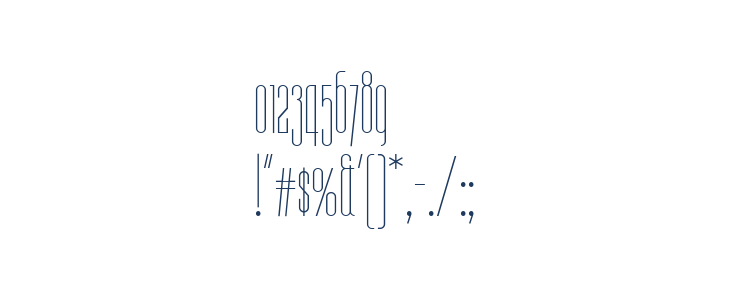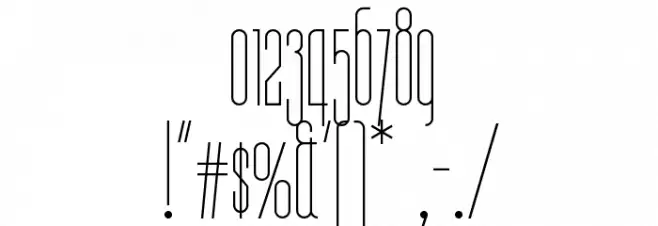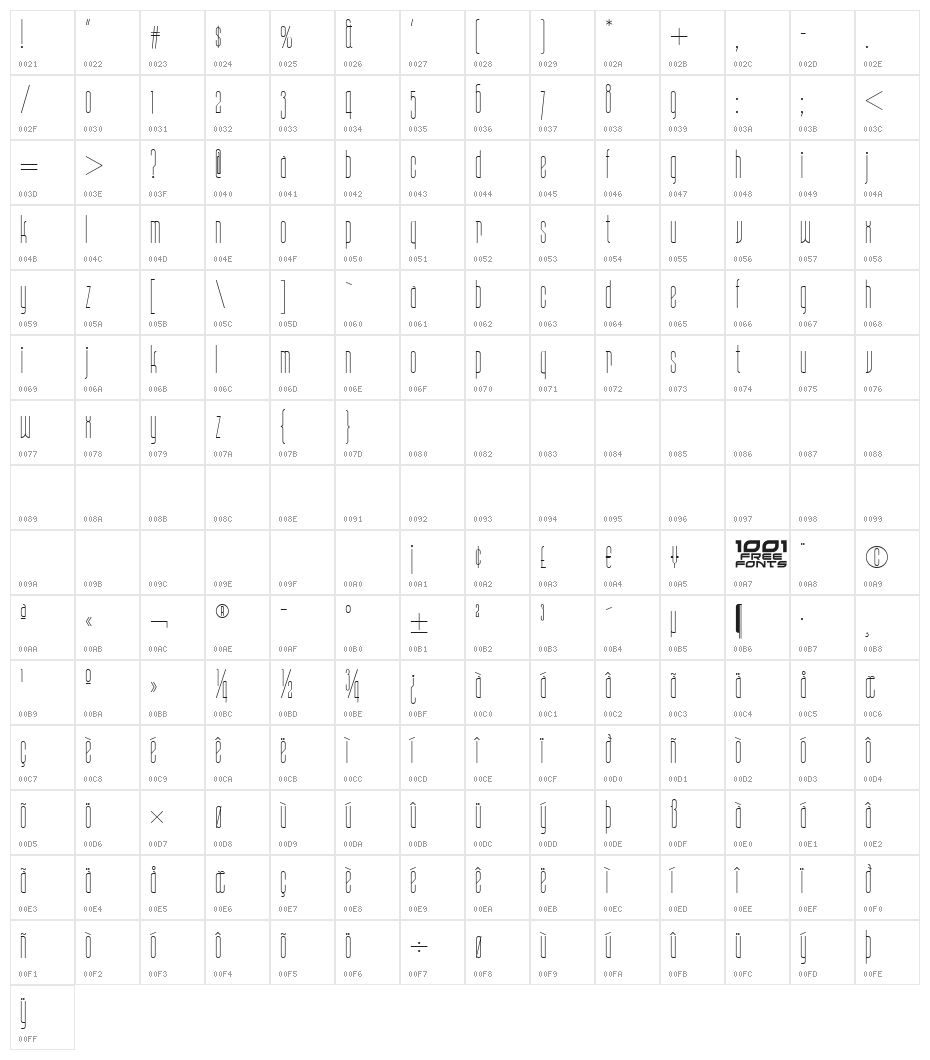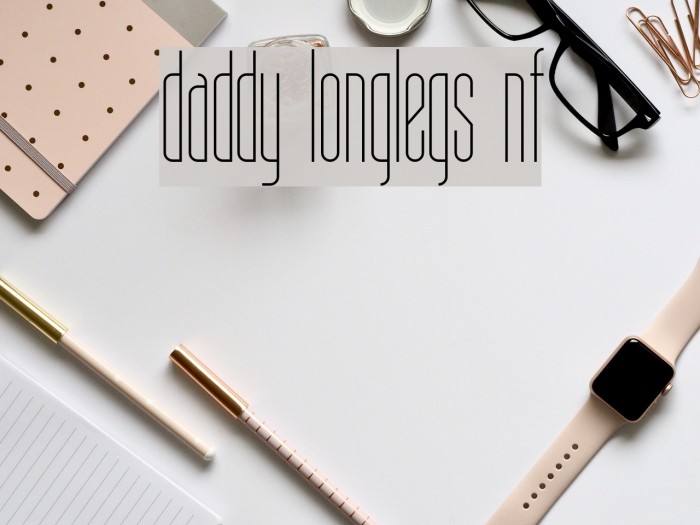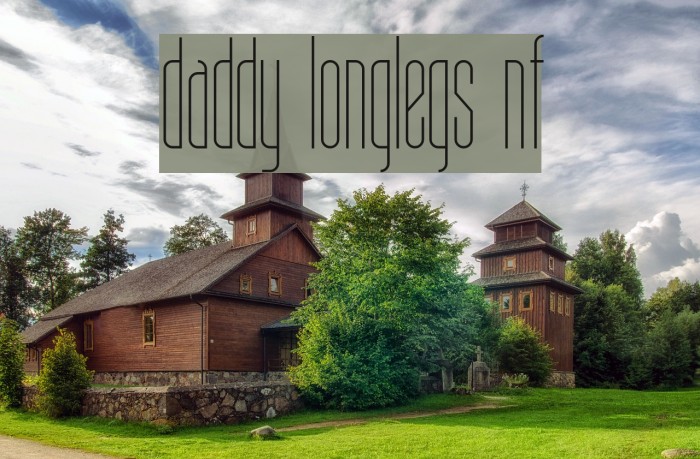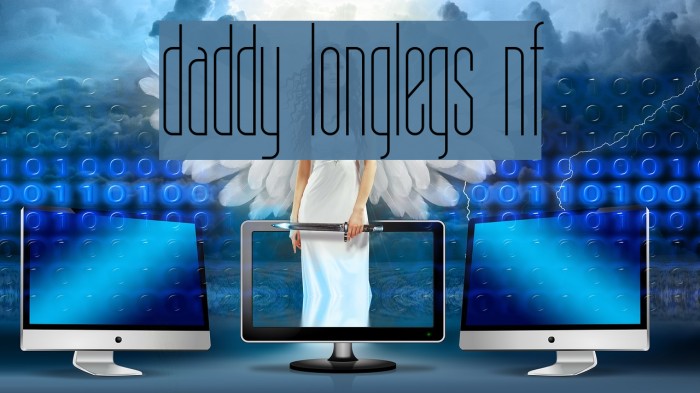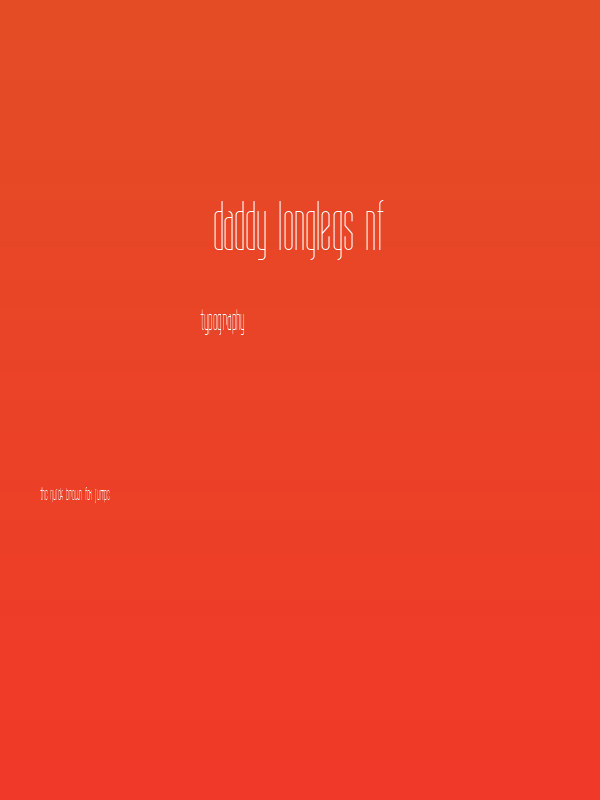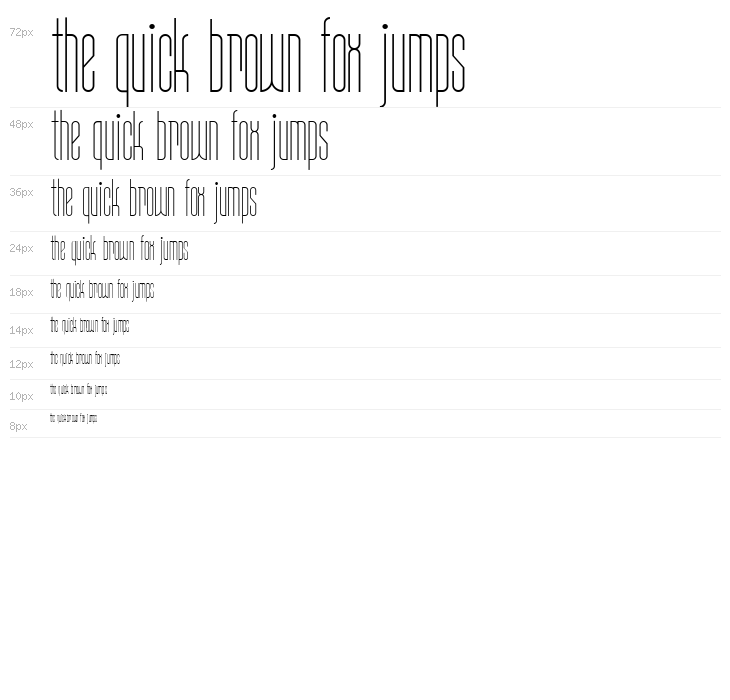
Daddy Longlegs NF Font
Daddy Longlegs NF Description
This font features an ultra-condensed and elongated design, characterized by its tall, narrow letters with minimal stroke contrast. The characters exhibit a modern and sleek aesthetic, with clean lines and a geometric structure. The uppercase and lowercase letters maintain a consistent height, contributing to a uniform appearance. The numerals and special characters follow the same elongated style, ensuring cohesion across all elements. This font's unique style makes it stand out, offering a distinctive look that is both elegant and contemporary.
Proposed ProjectsIdeal for fashion branding, luxury product packaging, modern art posters, and editorial headlines.